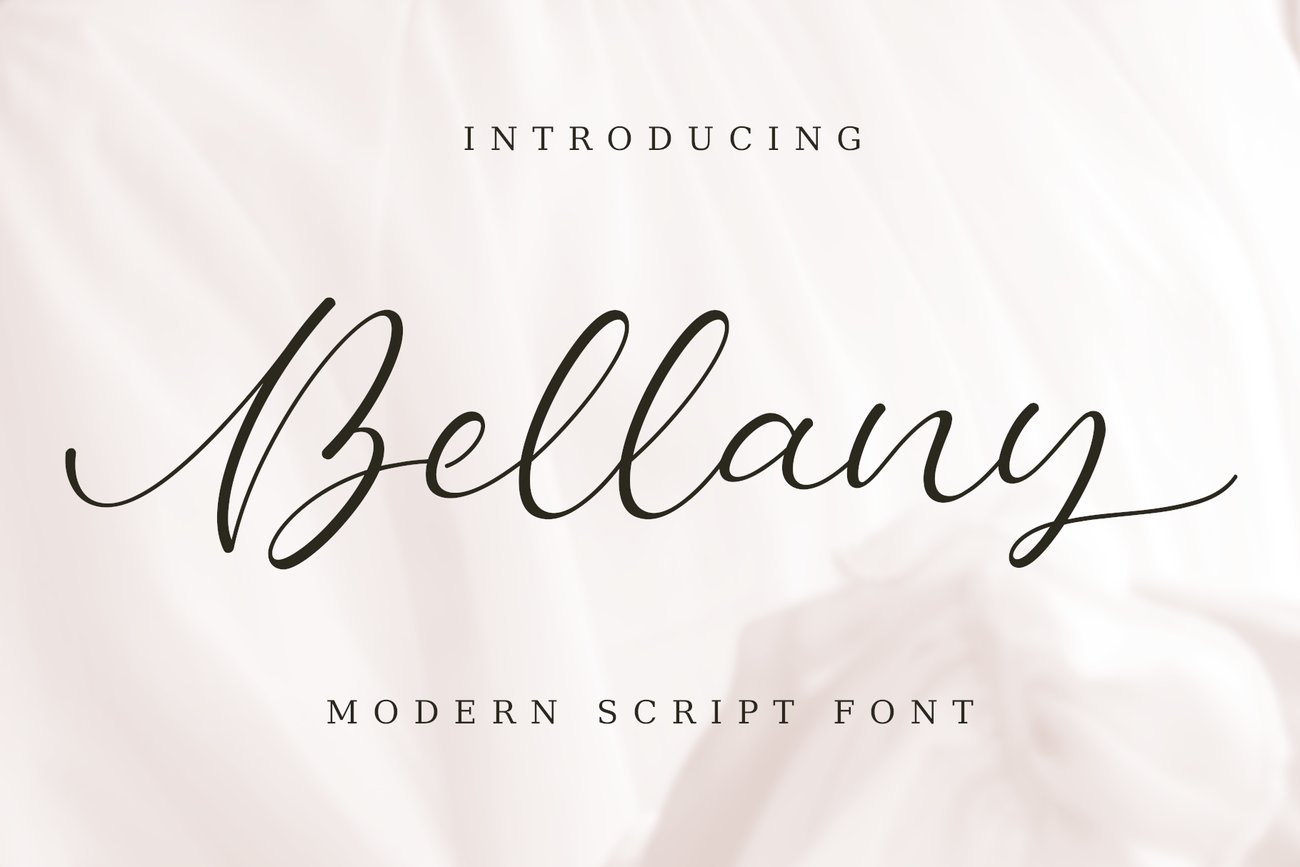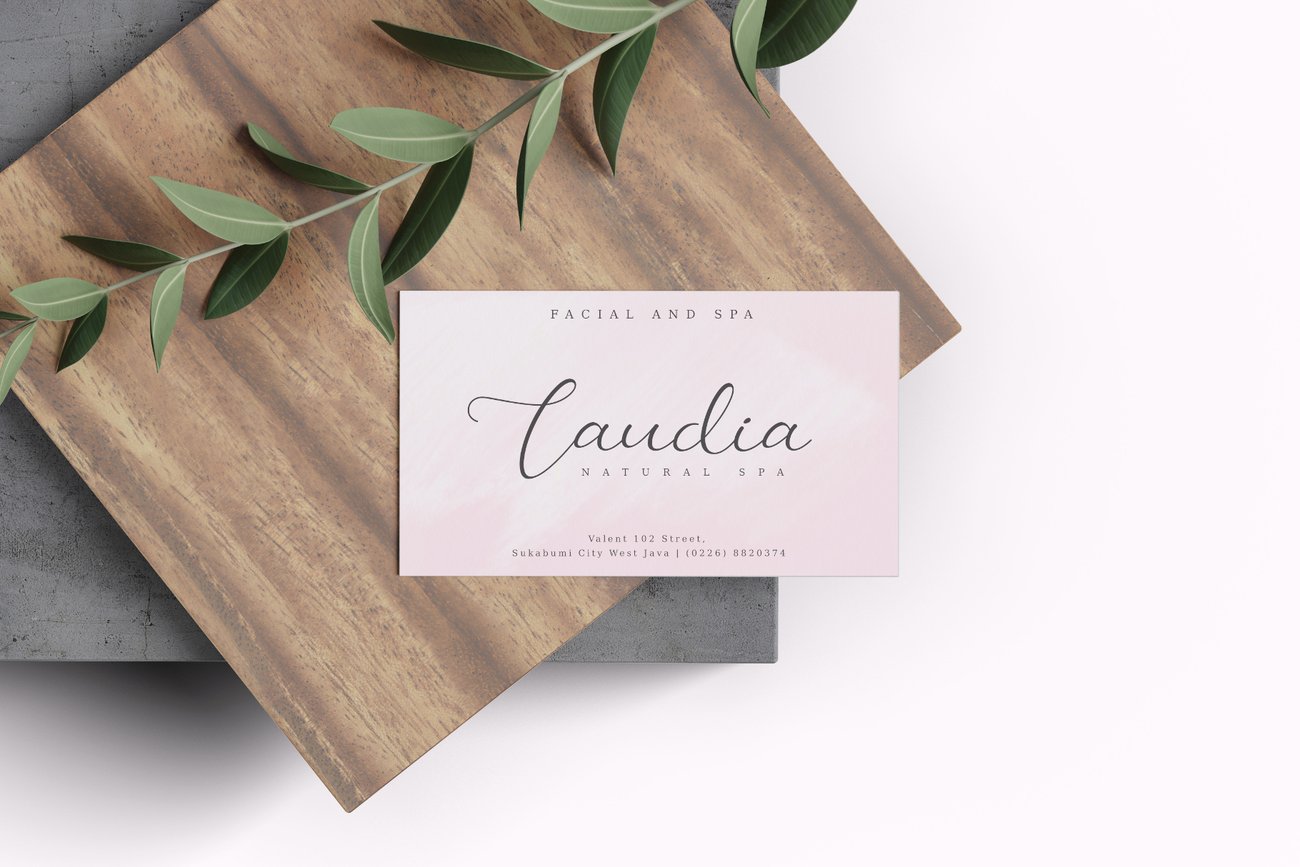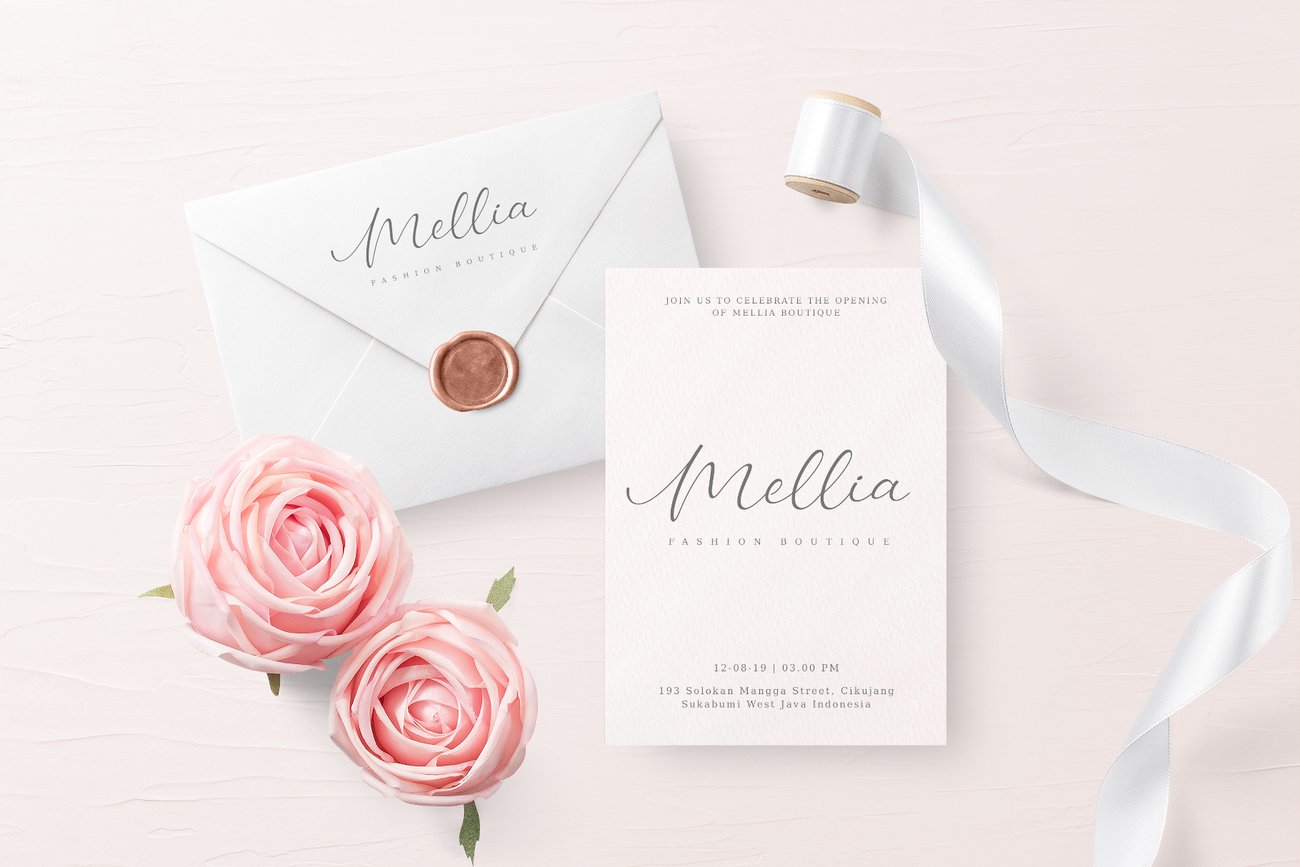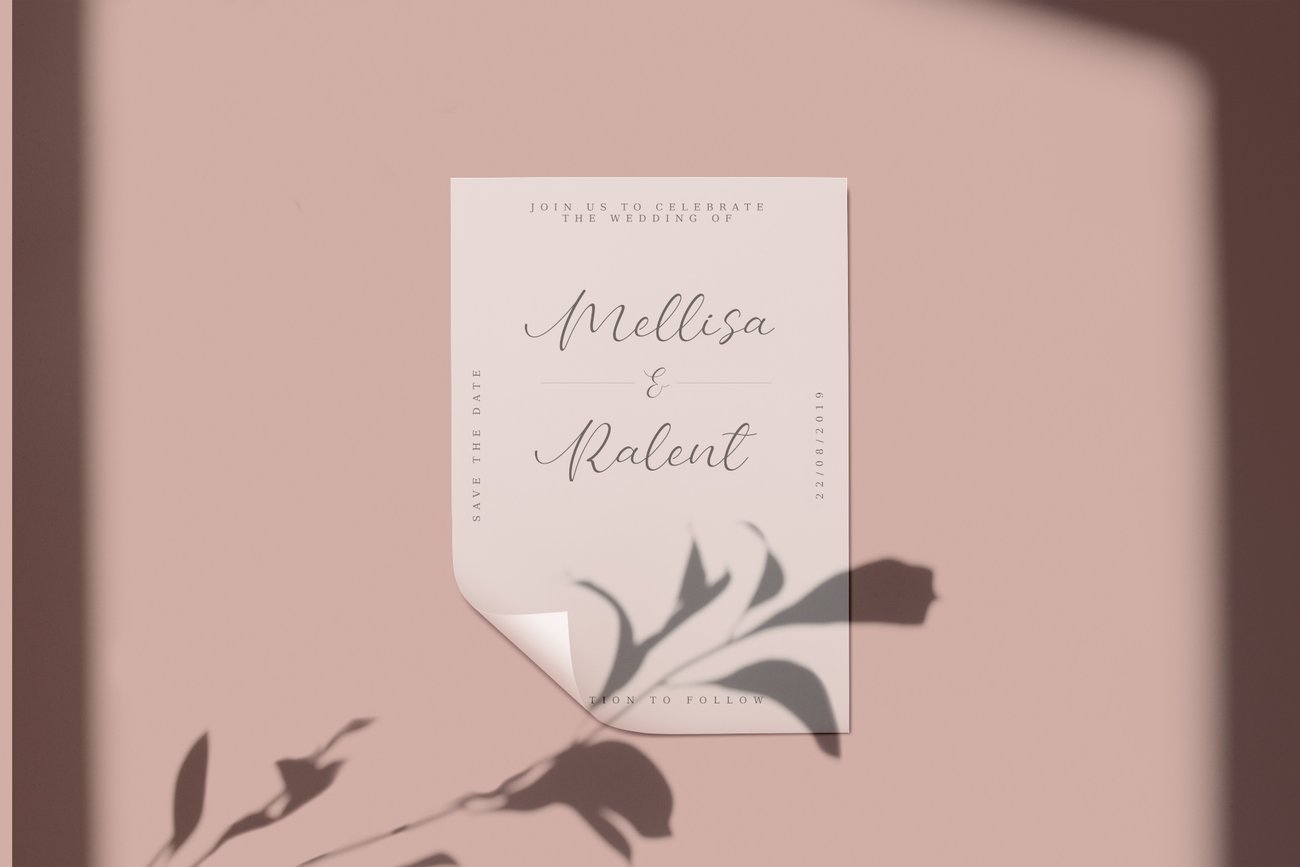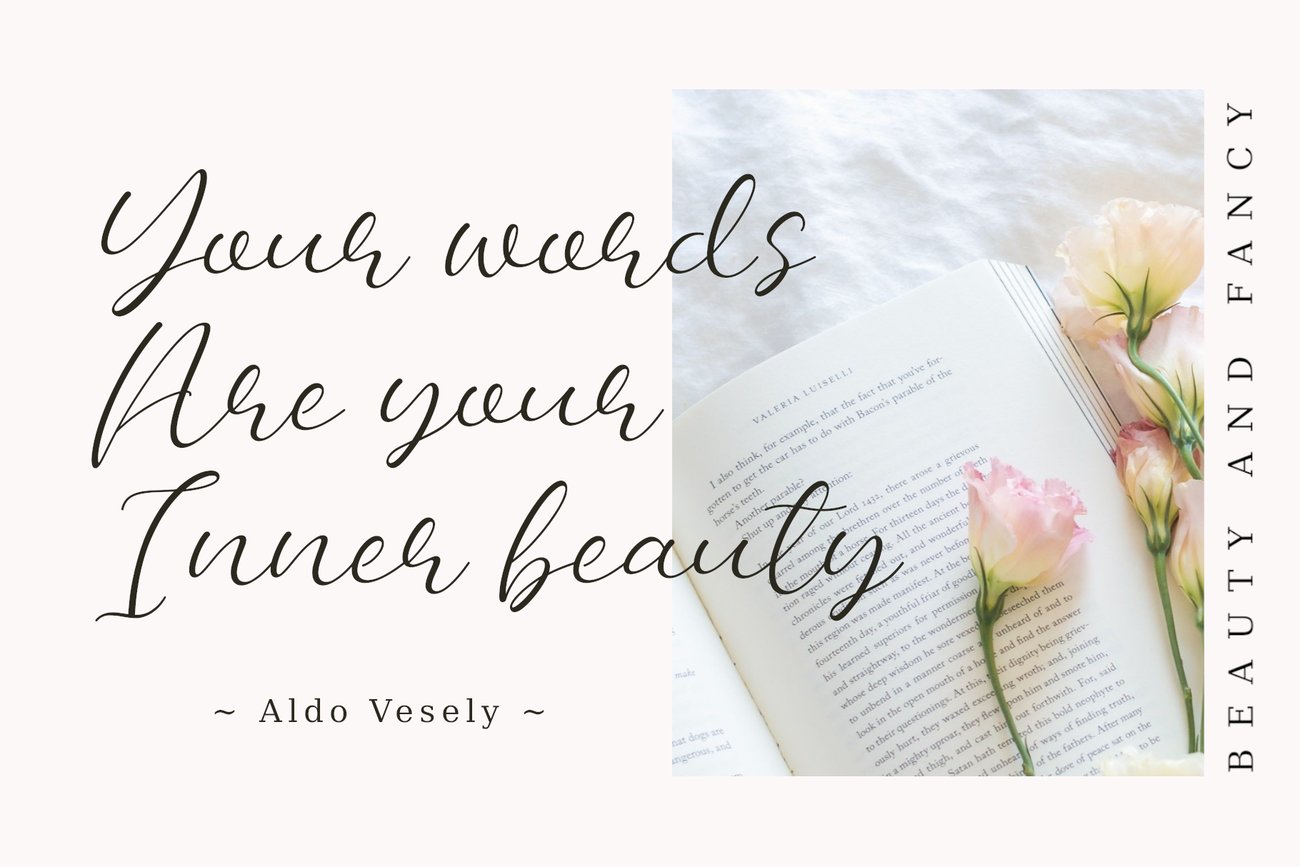
Bellanyis a modern and elegant font and suitable for boutique logos, ID cards, Invitation card, Wedding Invitation, magazine, fashion posters, fashion catalogs, quotes, logo, sosial media, book cover and many more Bellany is very easy to access because we have given PUA Encoded and divide special characters into opentype features such as ligature and alternate so you can access them with programs that have opentype support. If the program you are using does not yet have opentype support, you can also access the opentype feature through the Character map (Window) and font book (Mac) Main Feature : – Uppercase & Lowercase – Number – Punctuation – Multilingual Support – Ligatures – Alternate – PUA Encoded File Include : – Bellany.ttf – Bellany.otf – Bellany.woff If you have any questions don’t hesitate to let me know |avtype.indonesia@gmail.com